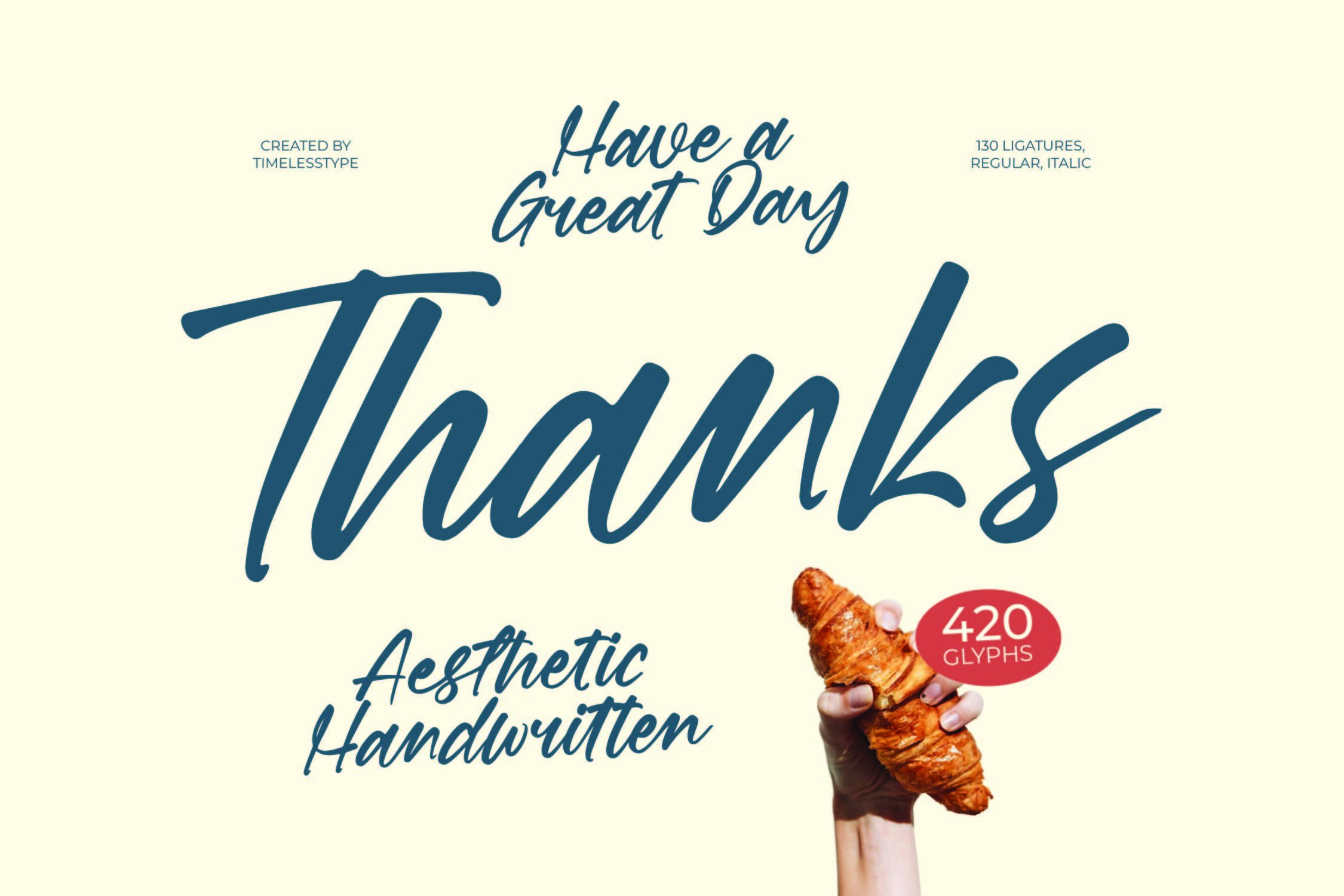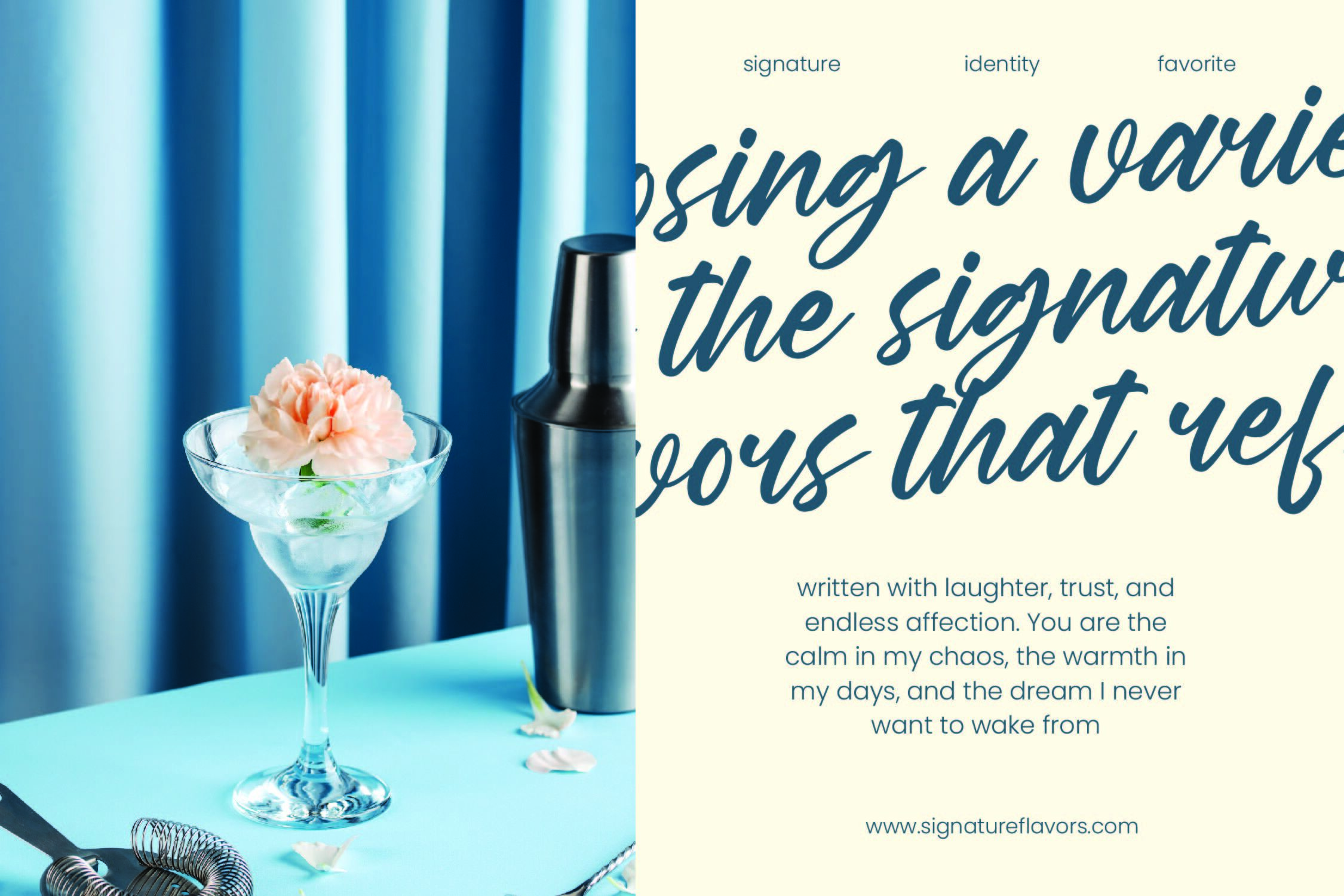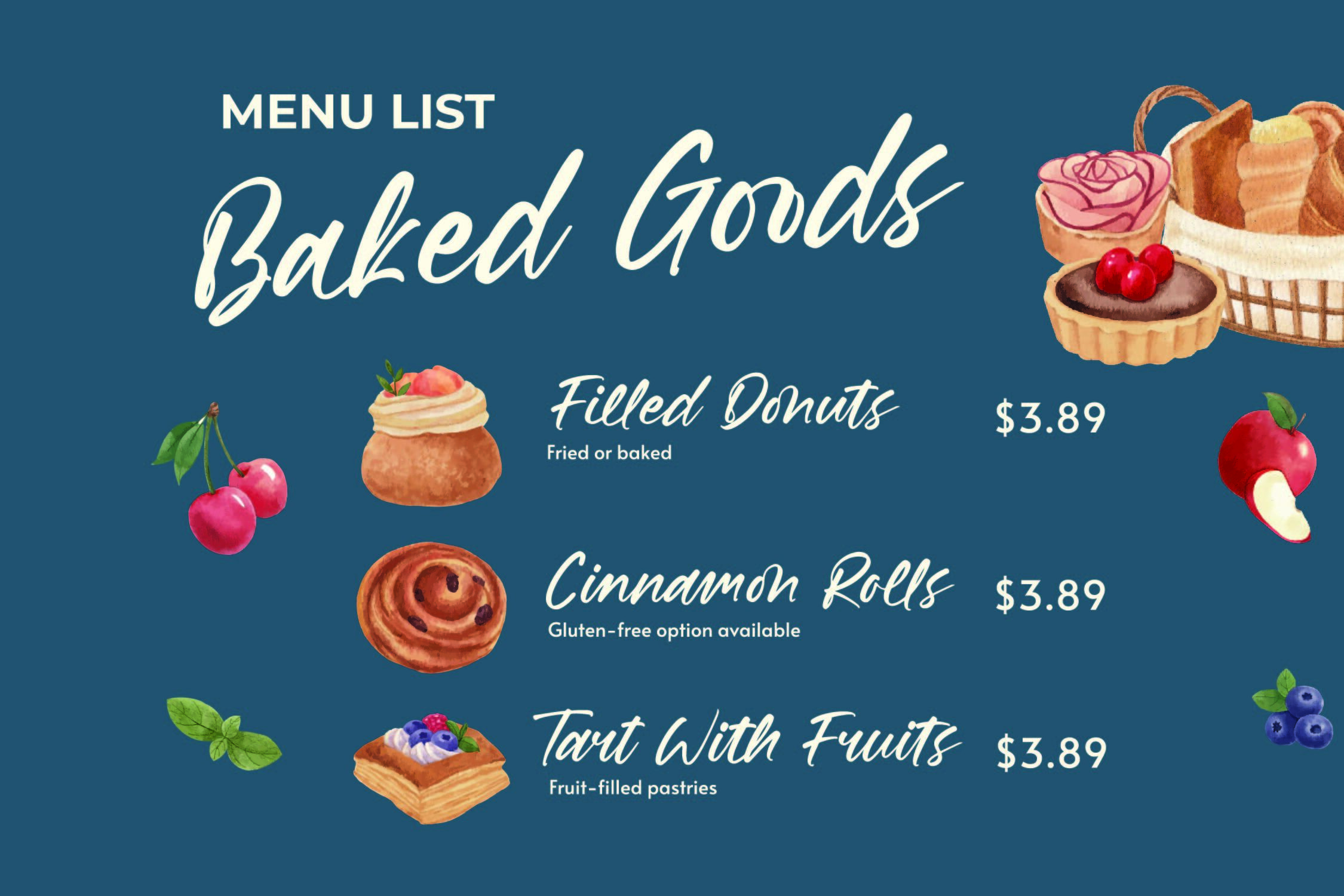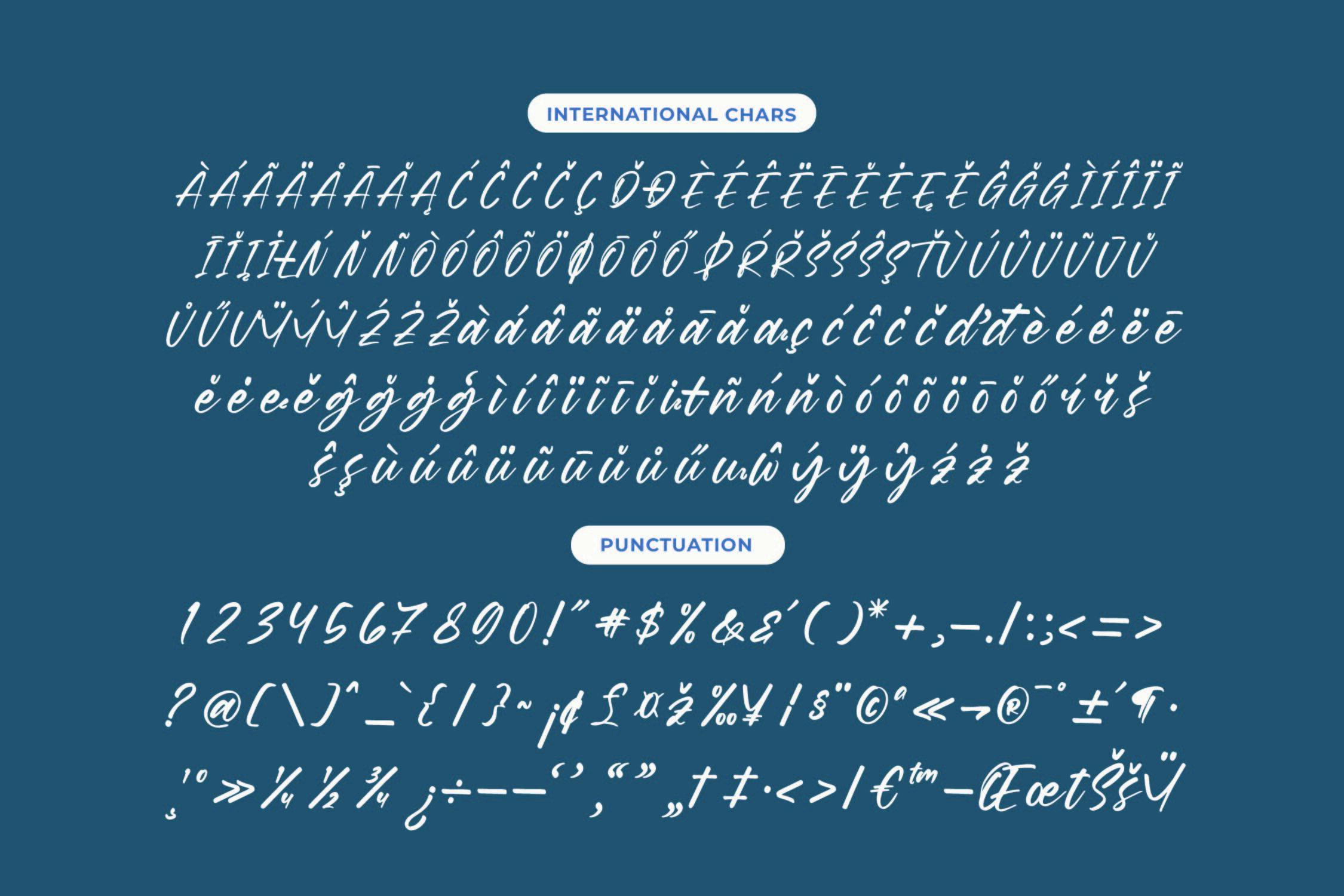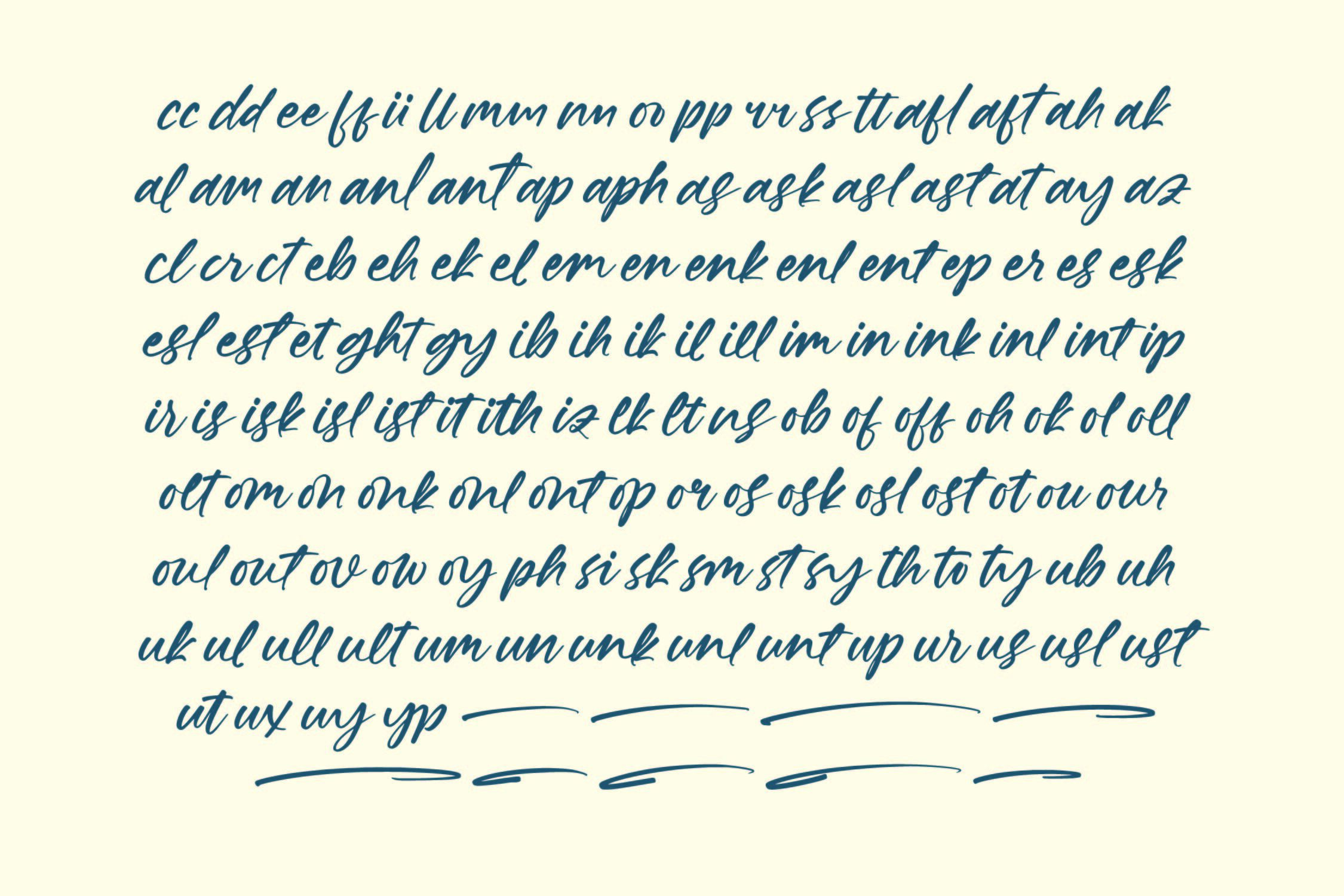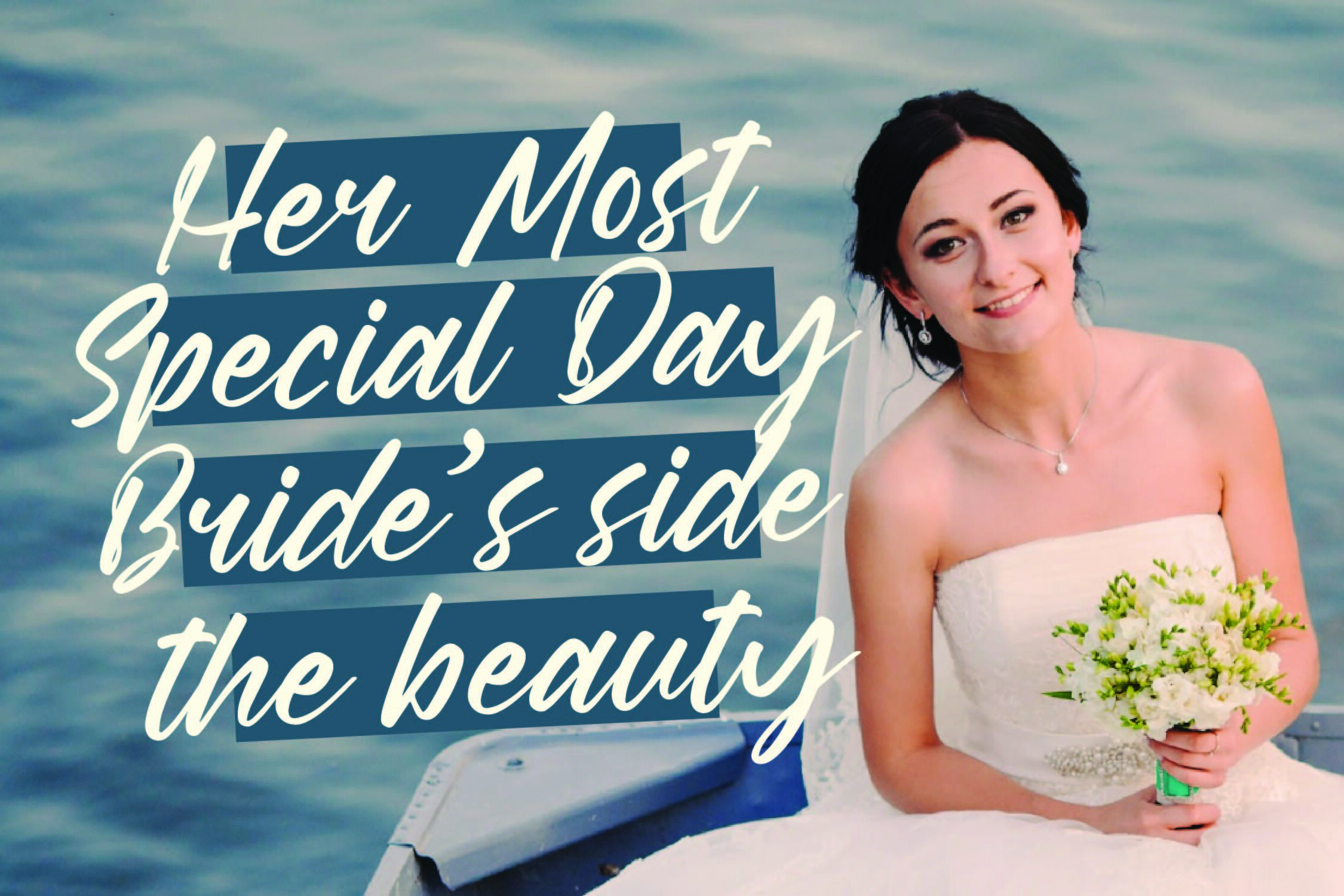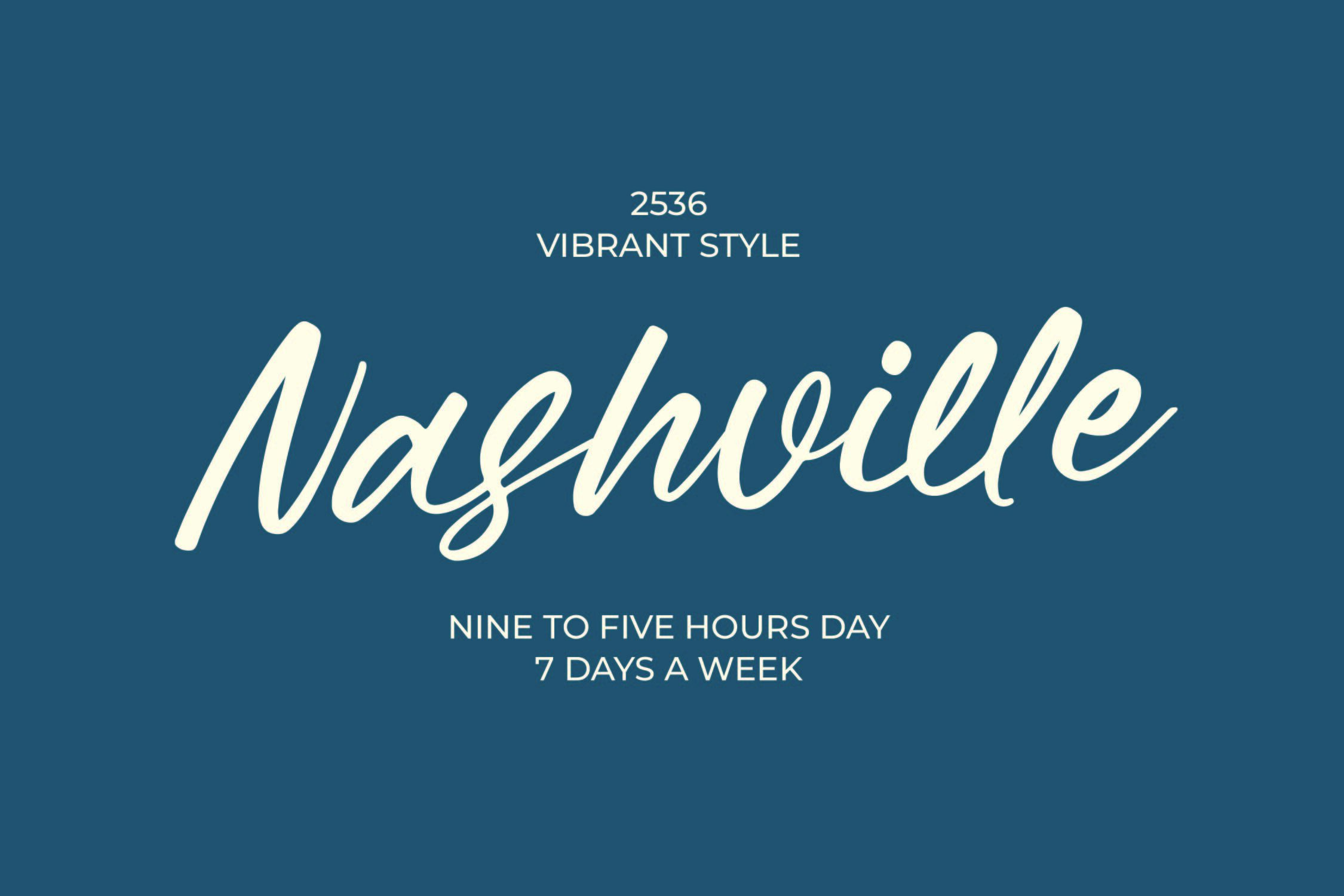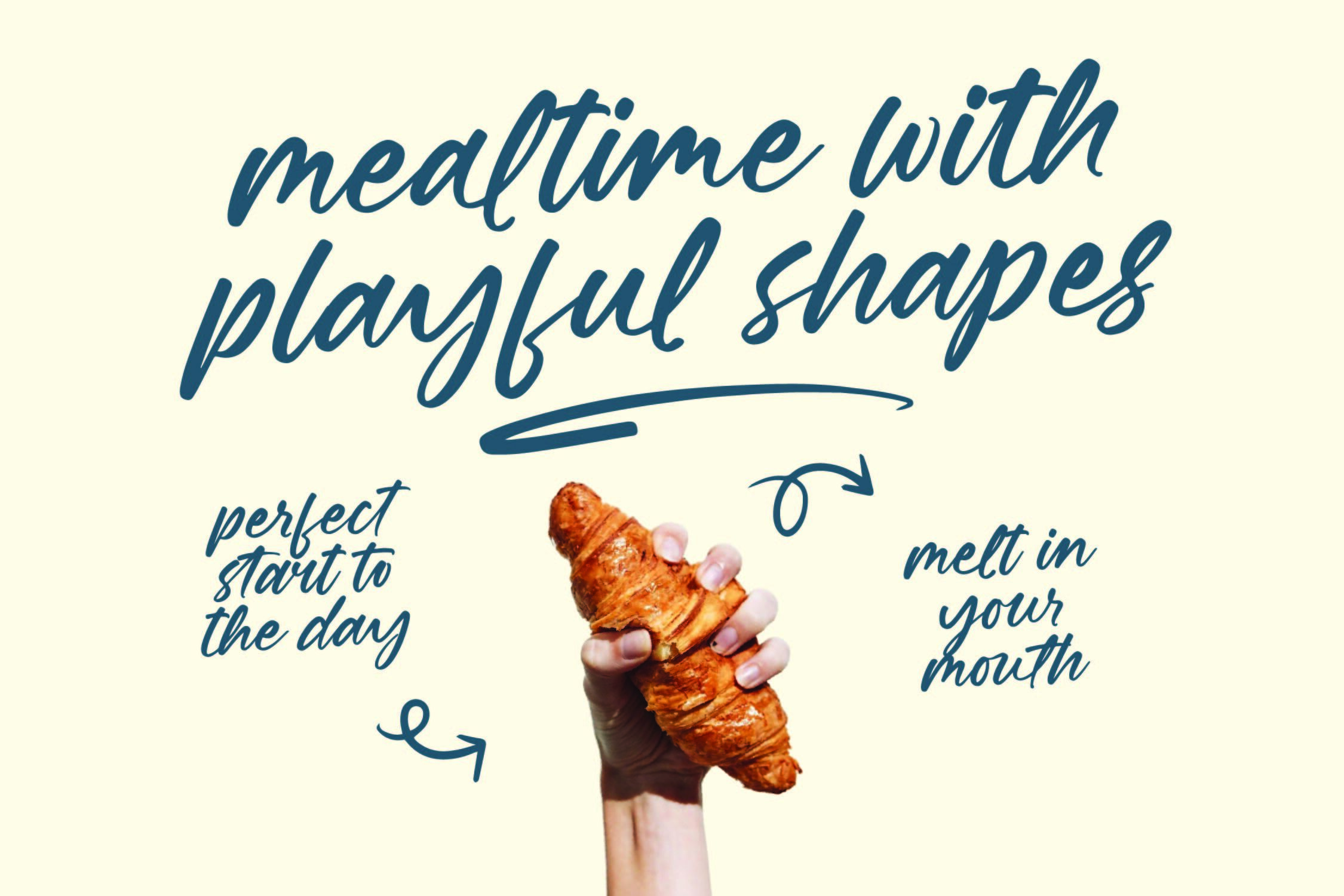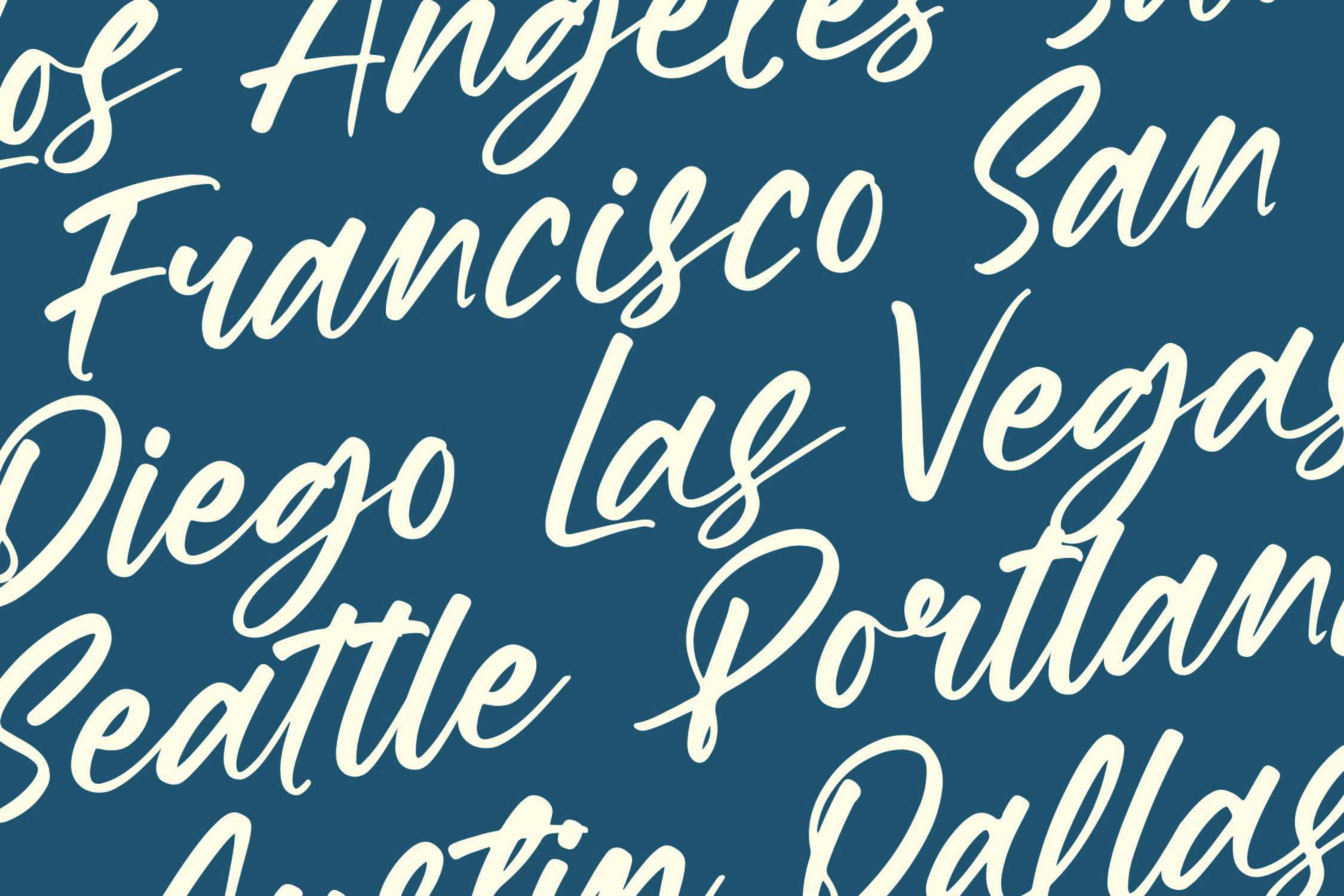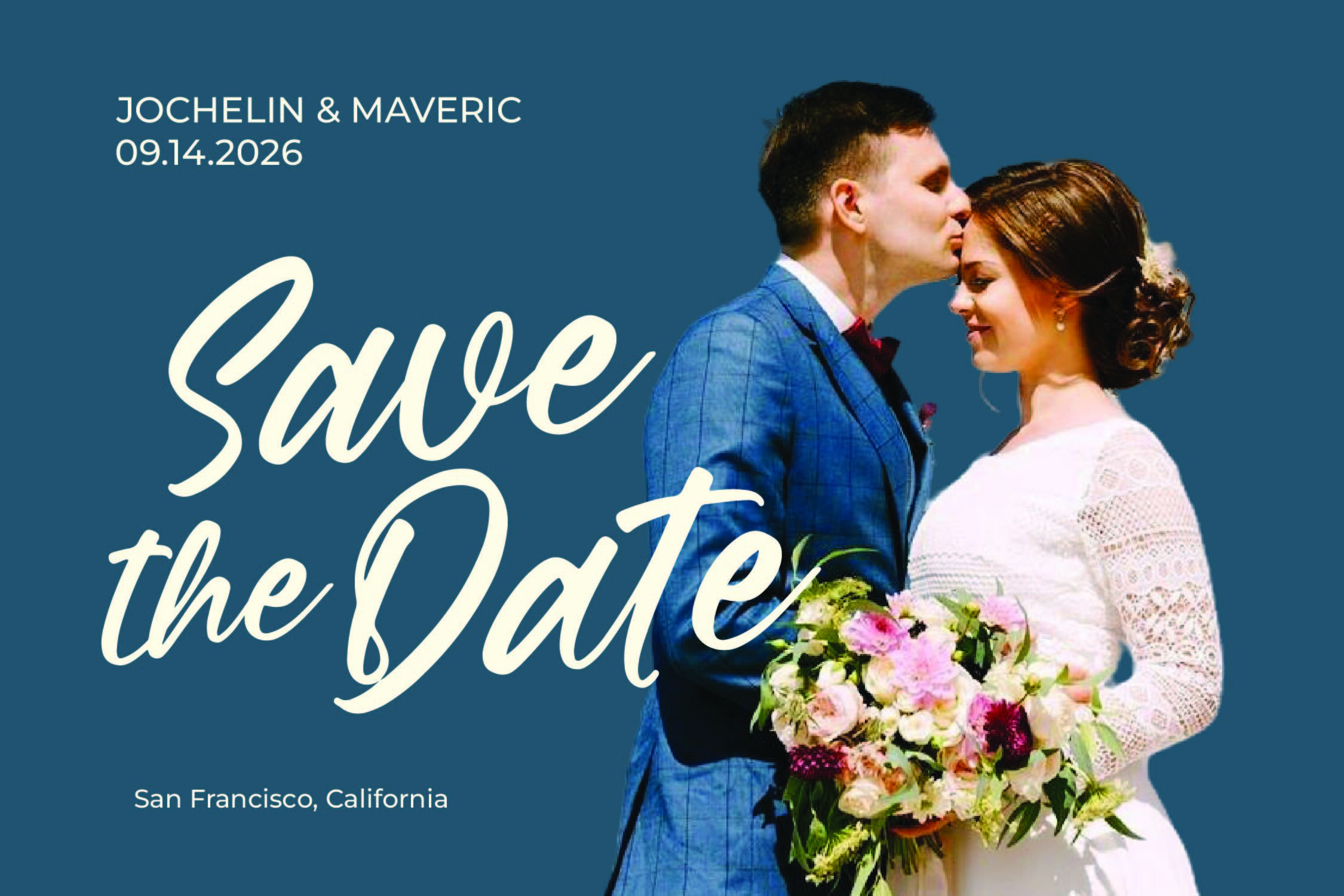
Daniela Butters - Aesthetic Handwritten Font
Daniela Butters - Aesthetic Handwritten Font , Daniela Butters is an aesthetic handwritten font that perfectly blends modern charm with effortless natural flow. With 130 ligatures, 420 total glyphs, and Regular & Italic styles, this typeface delivers smooth, expressive strokes that make it ideal for logos, packaging, invitations, and lifestyle branding. Each letter is designed with a touch of warmth and authenticity, bringing a handcrafted elegance to your projects. Daniela Butters captures the essence of casual sophistication, making it perfect for creative designs that need a personal yet stylish handwritten look.